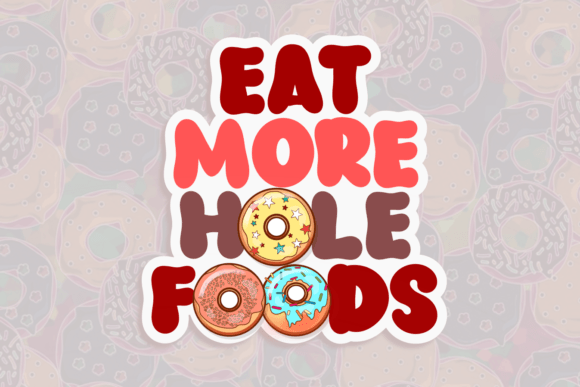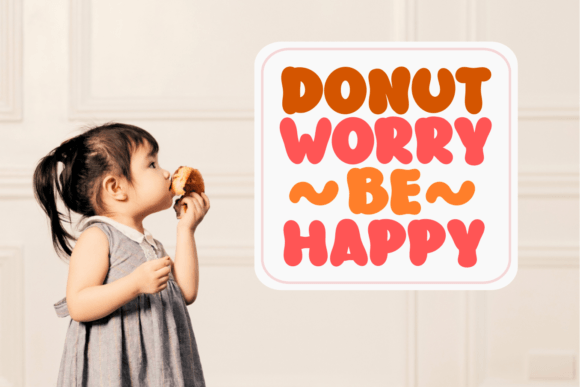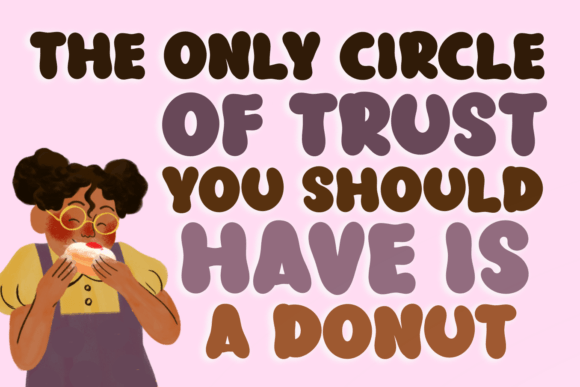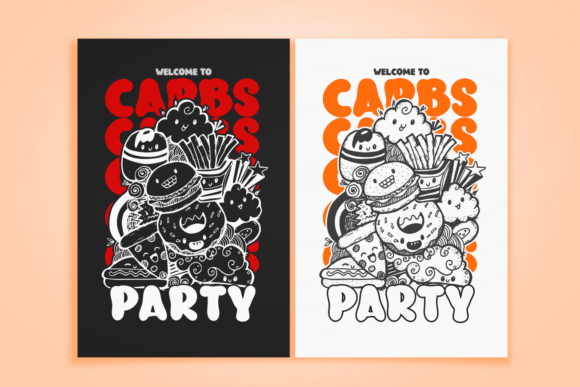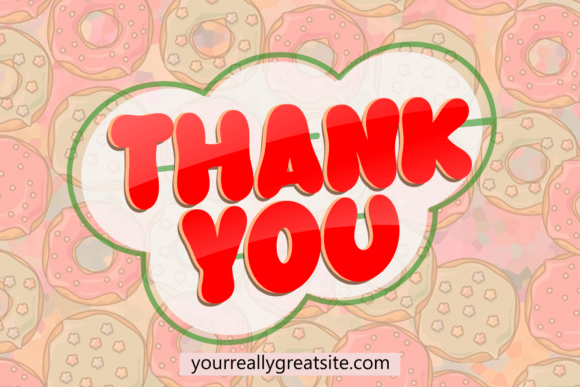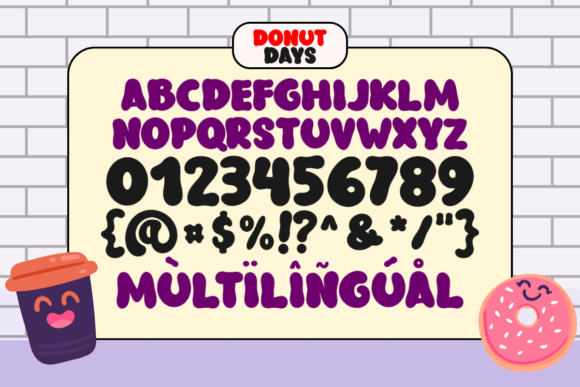
When Typography Meets Playfulness
Have you ever been in a creative rut, staring blankly at your design software, searching for the perfect font to bring your project to life? We’ve all been there. And then, suddenly, it hits you – a font so adorable, so full of personality, that it makes your design shine. For designers, the right font can make all the difference between a good design and a great one.
Enter Donut Days Font, a fun and cute bold font that’s perfect for adding a playful touch to your designs. With its versatility, Donut Days Font is suitable for a wide range of applications, from merchandises and posters to packaging and stickers. Whether you’re creating a logotype or a promotional campaign, this font is sure to bring a smile to your audience’s face.
For designers, the value of Donut Days Font lies in its ability to add a touch of whimsy and fun to even the most mundane designs. With this font, you can create designs that are not only visually appealing but also memorable and engaging. So why settle for a boring, run-of-the-mill font when you can have a font that’s as sweet as a donut?
Donut Days Font Key Features
- Font Family: Donut Days is a sans-serif font family designed specifically for digital use. It includes 5 font styles: Thin, Light, Regular, Medium, and Bold.
- Unique Characteristics: Donut Days features a unique blend of modern and retro design elements, giving it a distinctive and eye-catching appearance. Its clean lines, rounded corners, and subtle texture make it perfect for use in branding, advertising, and packaging design.
Designer Review: Donut Days Font
First off, I have to say that I was a bit skeptical about the “Donut Days Font” at first. I mean, a font that’s specifically designed for a donut shop? It sounded like a gimmick to me. But, after taking a closer look, I have to admit that it’s actually quite charming.
- The font’s playful and whimsical feel is perfect for a donut shop. It’s fun, lively, and immediately conveys the sense of indulgence and treat.
- The font’s bold lines and rounded edges give it a friendly, approachable feel that’s sure to put a smile on customers’ faces.
- The font’s versatility is also a major plus. It can be used for everything from signage to menus to social media graphics.
- The font may be a bit too cutesy for some brands. If you’re going for a more serious or professional vibe, this font might not be the best fit.
- The font’s simplicity can also make it feel a bit one-dimensional at times. It’s not the most complex or nuanced font out there.
Overall, I’d say that the “Donut Days Font” is a solid choice for donut shops or other brands that want to convey a sense of fun and indulgence. It’s not perfect, but it’s a fun and charming addition to any brand’s visual identity.
The Donut Days Font is ideal for:
- Cake and pastry shops to create eye-catching menus and signage.
- Food bloggers and influencers to add a touch of whimsy to their recipes and reviews.
- Event planners to create unique invitations and decorations for dessert-themed parties.
Tips for Getting the Most Out of the Donut Days Font
For best results, pair the Donut Days Font with bright and playful colors, and use it in conjunction with creative graphics and illustrations.